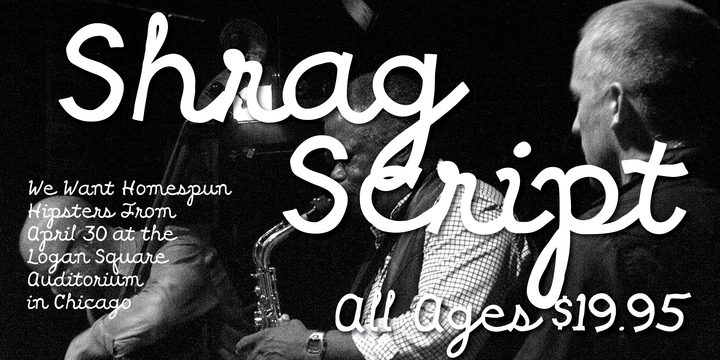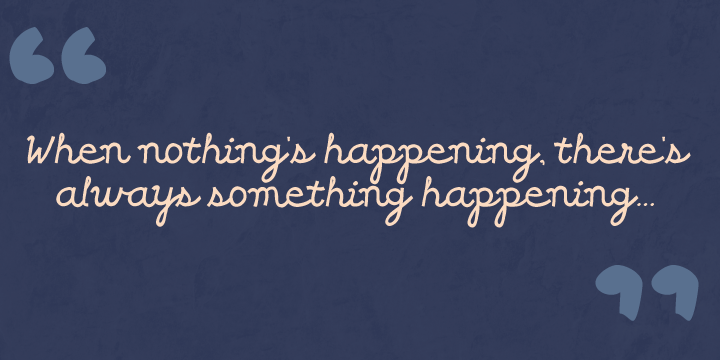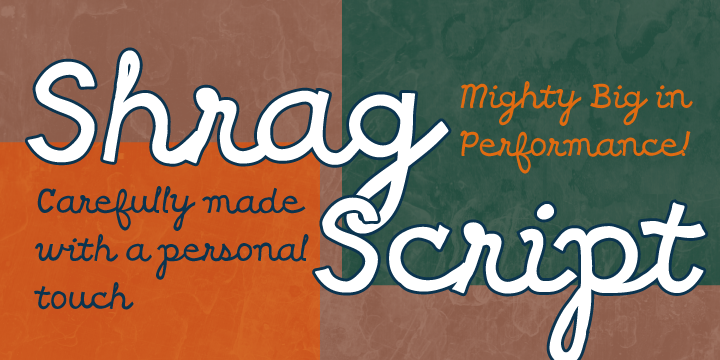
Shrag Script
About Shrag Script Font
Shrag script is a fun script from Rocket Type.
Originating from a fat marker drawing it’s a comfortable font, fine performing in every minor detail.
It is the embodiment of everything a fine handwritten script should be.